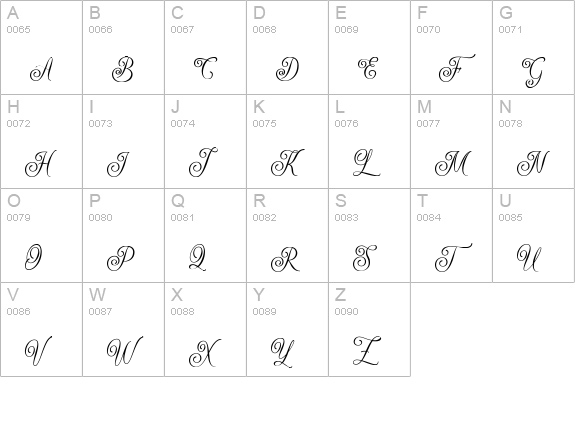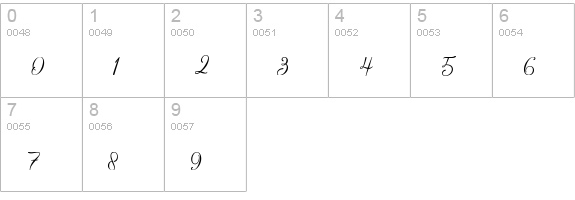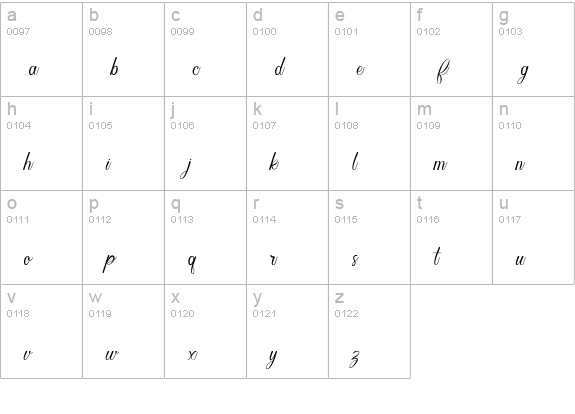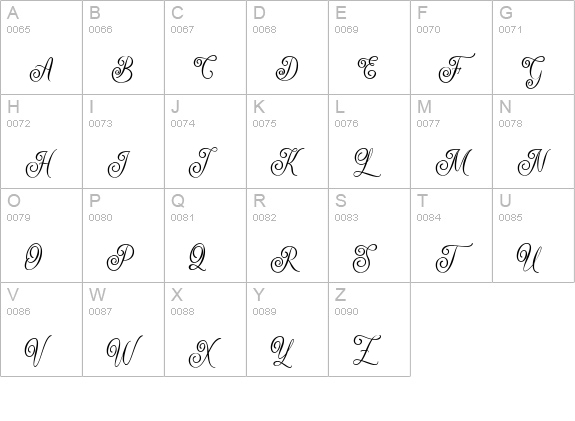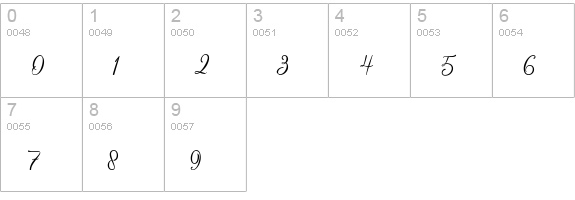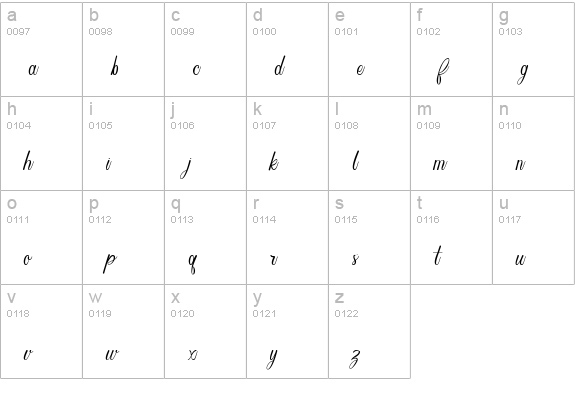
Daistty Font Details
Daistty is a free for personal use font in the Script > Handwritten category, designed by Serin Studio. It has been downloaded 378 times and is available for Windows, Mac and Linux.
Introducing Daistty font, a beautifully crafted typeface that perfectly blends elegance with modernity. This versatile font is ideal for various design projects, from branding to editorial design and everything in between. Its sleek and sophisticated style will effortlessly elevate any project it is used in.